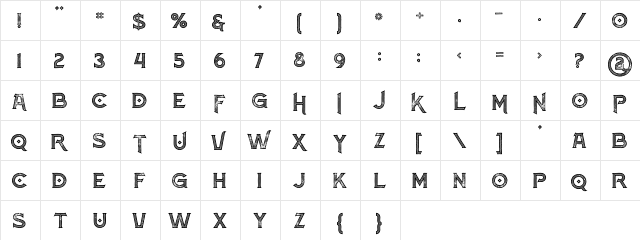
Atlantis Inline Grunge Inline Grunge
Design Context for Atlantis Inline Grunge Typeface
Atlantis Inline Grunge trades polish for personality, using distressed and eroded forms to bring grit and attitude to creative work.
A strong fit for alternative music projects, graffiti-adjacent design, and anything that deliberately resists polish.
Pro Tip: Use Atlantis Inline Grunge at larger sizes where the texture and irregularity of each letterform can be clearly seen — it loses its character at small sizes.